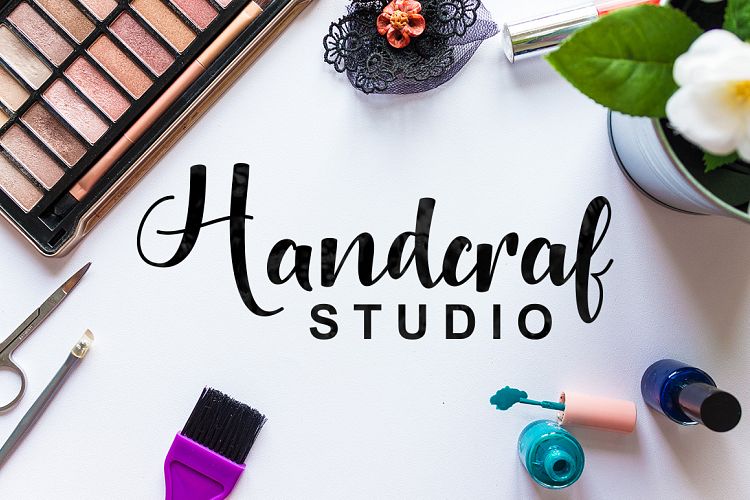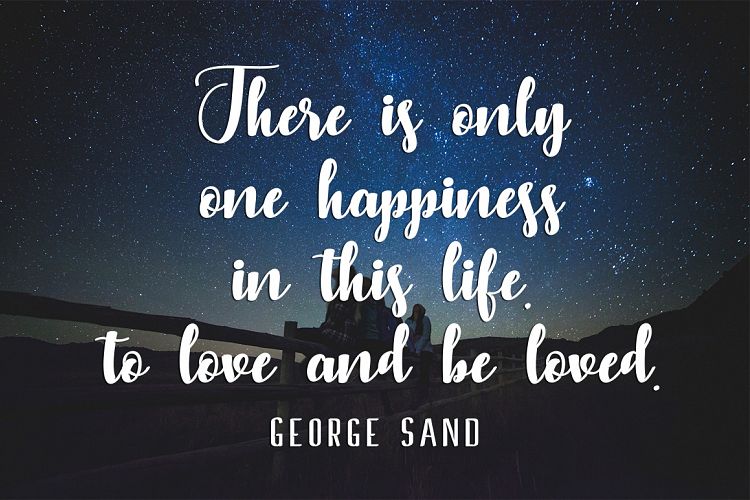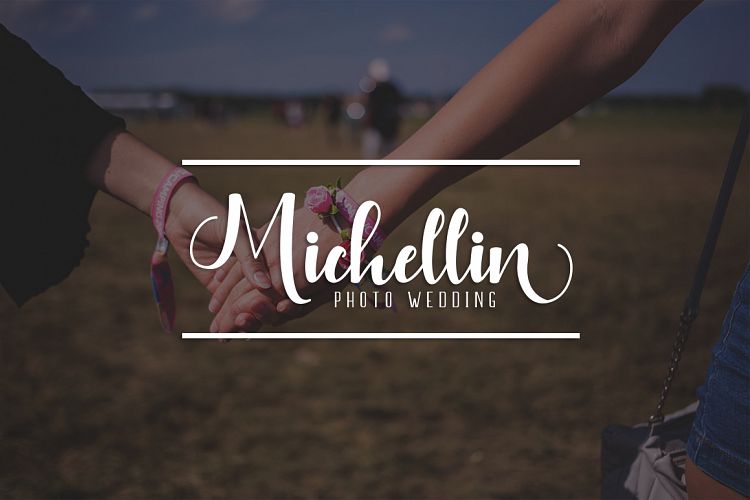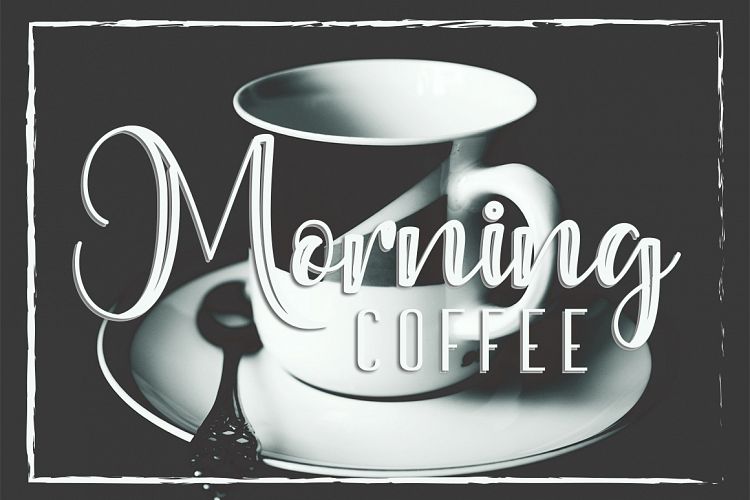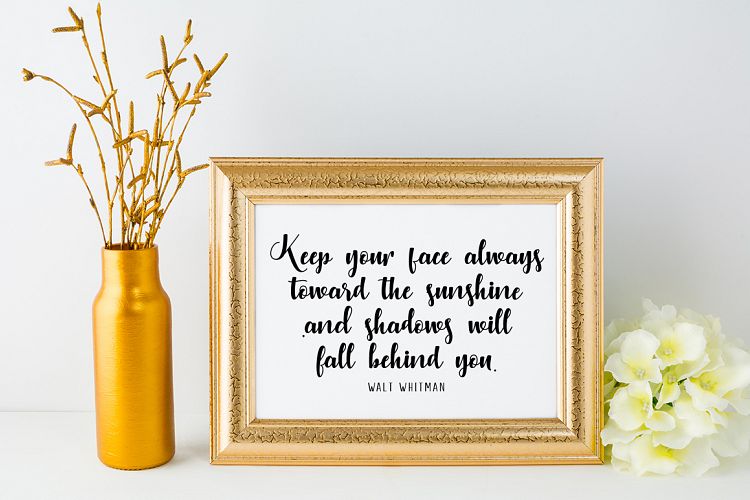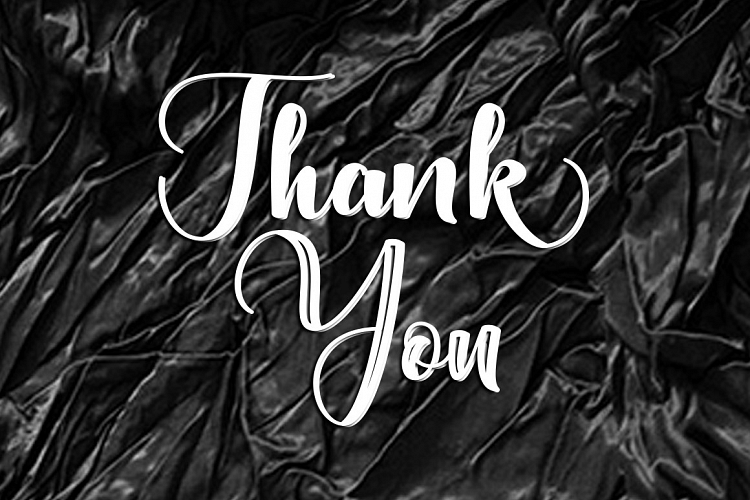
The Bontella Font: A Fresh and Modern Script Font Duo
Have you ever been in the middle of a design project, and suddenly, you’re stuck on finding the perfect font? I recall a recent experience where I was working on a branding project for a trendy boutique, and I just couldn’t find a script font that captured the right vibe. That’s when I stumbled upon the Bontella Font, a fresh and modern script font duo that instantly elevated my design game!
First Impressions: What I Love About Bontella
The Bontella Font is a versatile and stylish addition to any designer’s toolkit. Here are some things I love about it:
- ✨ Unique Glyphs: With over 420 unique glyphs, Bontella offers a wide range of creative possibilities.
- 📚 Script Font Duo: The Bontella Font comes with two styles: Bontella Script and Bontella Script Extra, providing flexibility and variety.
While Bontella is an excellent font, there are a few things to keep in mind:
- 🤔 Learning Curve: With so many glyphs and alternates, it may take some time to get familiar with the font’s capabilities.
The Story Behind Bontella
While the origins of Bontella remain a mystery, it’s clear that the designers aimed to create a versatile and stylish script font duo. Perhaps they were inspired by the beauty of handwritten scripts, the elegance of modern typography, or the playfulness of creative expression. Whatever the inspiration, Bontella has become a valuable asset for designers and crafters alike.
| What is the Bontella Font? | The Bontella Font is a fresh and modern script font duo, consisting of Bontella Script and Bontella Script Extra. |
| How many glyphs does Bontella have? | Bontella features over 420 unique glyphs. |